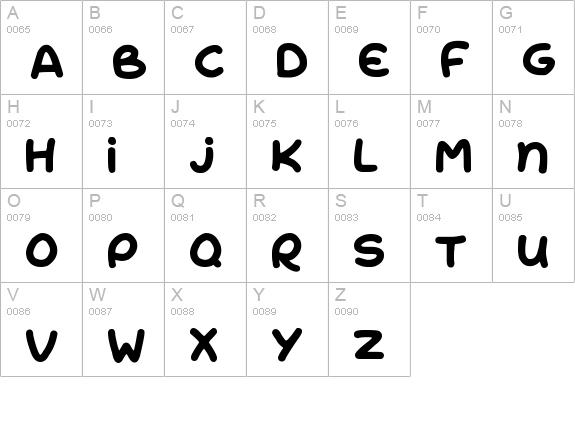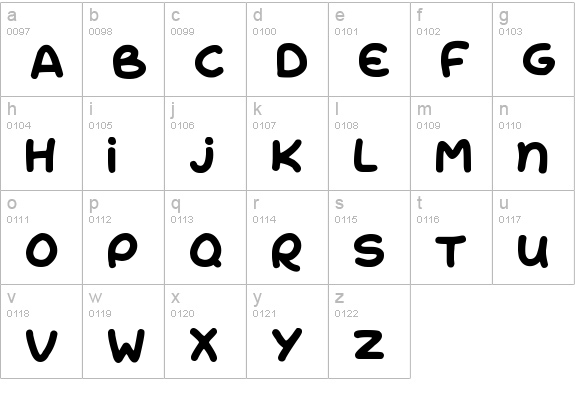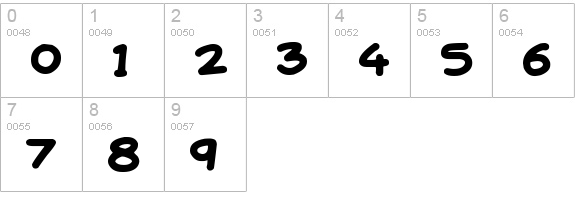
Rise and Shine Font Details
Rise and Shine is a donationware font in the Fancy > Comic category, designed by Darrell Flood. It has been downloaded 68 times and is available for Windows, Mac and Linux.
Rise and Shine font is a captivating and versatile typeface that exudes elegance and charm. Its graceful curves and stylish letterforms make it perfect for a wide range of design projects, from branding to editorial design and beyond. With its modern yet timeless aesthetic, Rise and Shine font is sure to make your creations stand out.